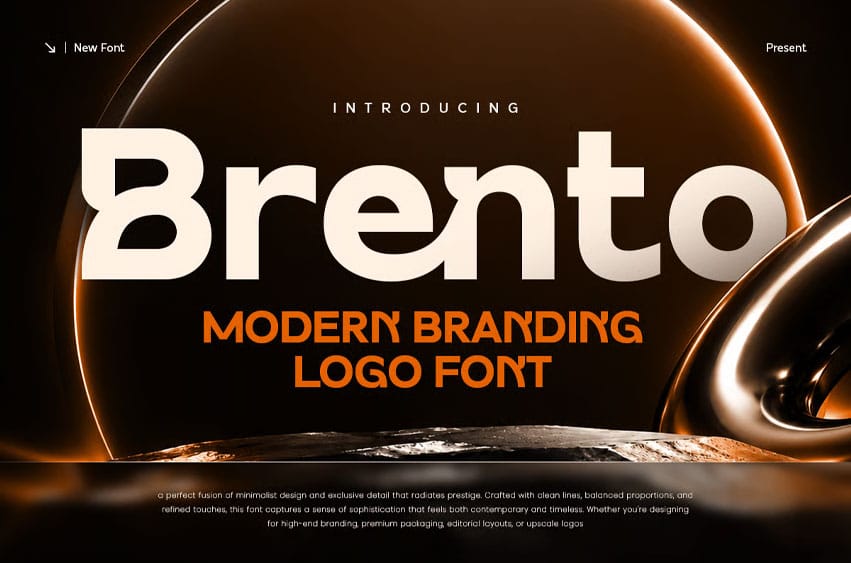
Brento Font
Brento Font Modern Branding Logo Font is a clean and versatile display font designed for modern logo design, professional branding, corporate identities, startup projects, and contemporary visual communication. Inspired by modern brand aesthetics and refined typography, Brento combines balanced letterforms with a confident visual character to create memorable and professional brand identities.
Featuring clean letterforms, balanced proportions, and a contemporary display structure, Brento delivers strong visual impact while maintaining excellent readability. Its versatile design makes it suitable for logos, branding systems, headlines, marketing materials, presentations, websites, and digital brand assets.
Whether you’re creating a business logo, launching a startup, developing a corporate identity, or building a modern brand system, Brento provides the flexibility and professional character needed to create a consistent and recognizable visual identity.
Brento Font Features
• Character Set: Uppercase, lowercase, numbers, symbols, and punctuation
• Modern branding letterforms optimized for logo design and visual identity
• Clean and versatile structure for professional brand applications
• OpenType features ready to enhance your design needs
Brento is Perfect For
• Modern logo and logotype design
• Corporate branding and business identity systems
• Startup and company branding
• Professional brand identity projects
• Website headers and digital brand assets
• Marketing and promotional materials
• Creative agency and studio branding
• Contemporary display typography
Whether you’re creating a modern logo, developing a professional brand identity, launching a startup, or designing contemporary marketing materials, Brento delivers the clarity, versatility, and confident character of a modern branding logo font built for today’s brands.